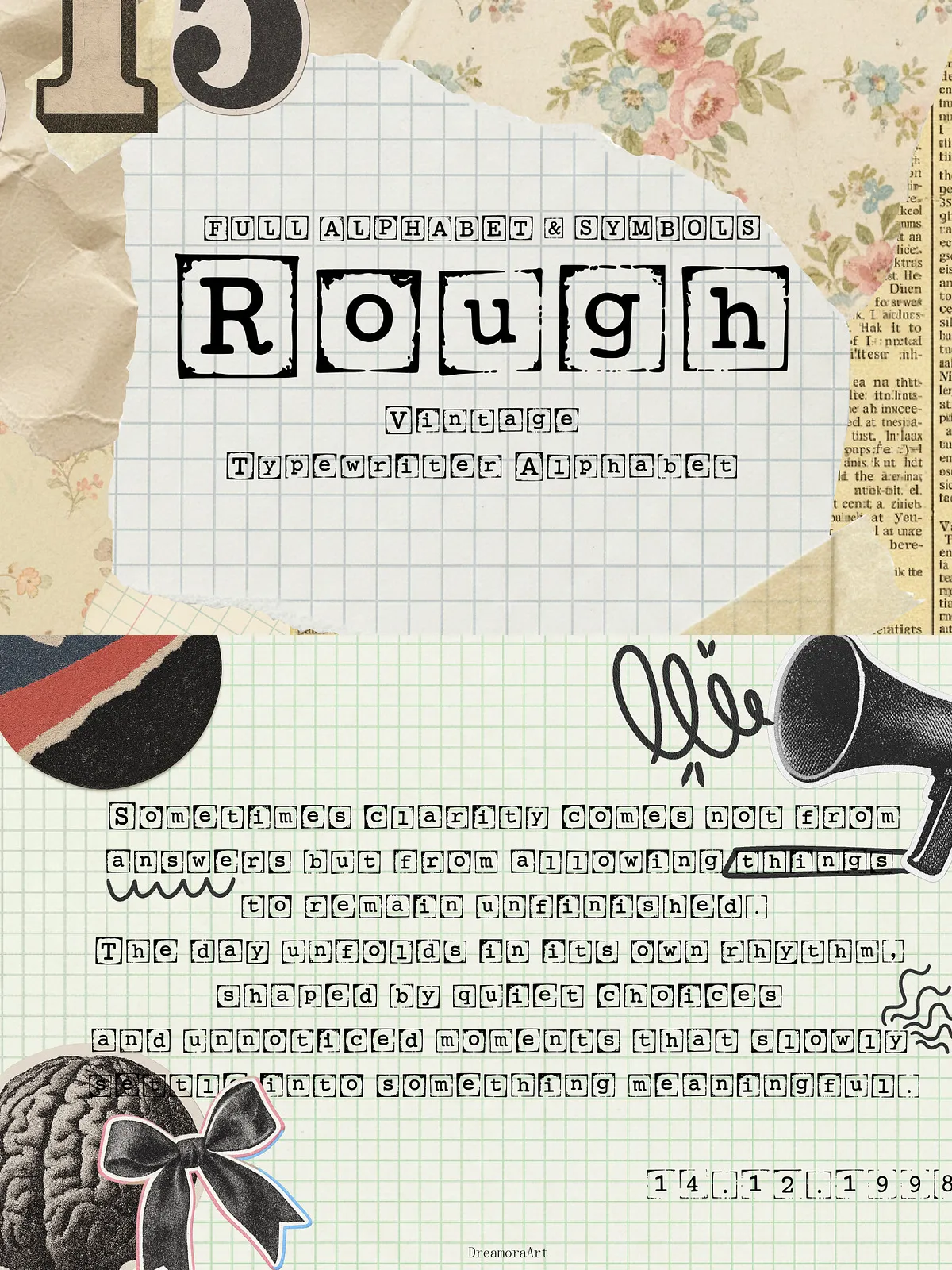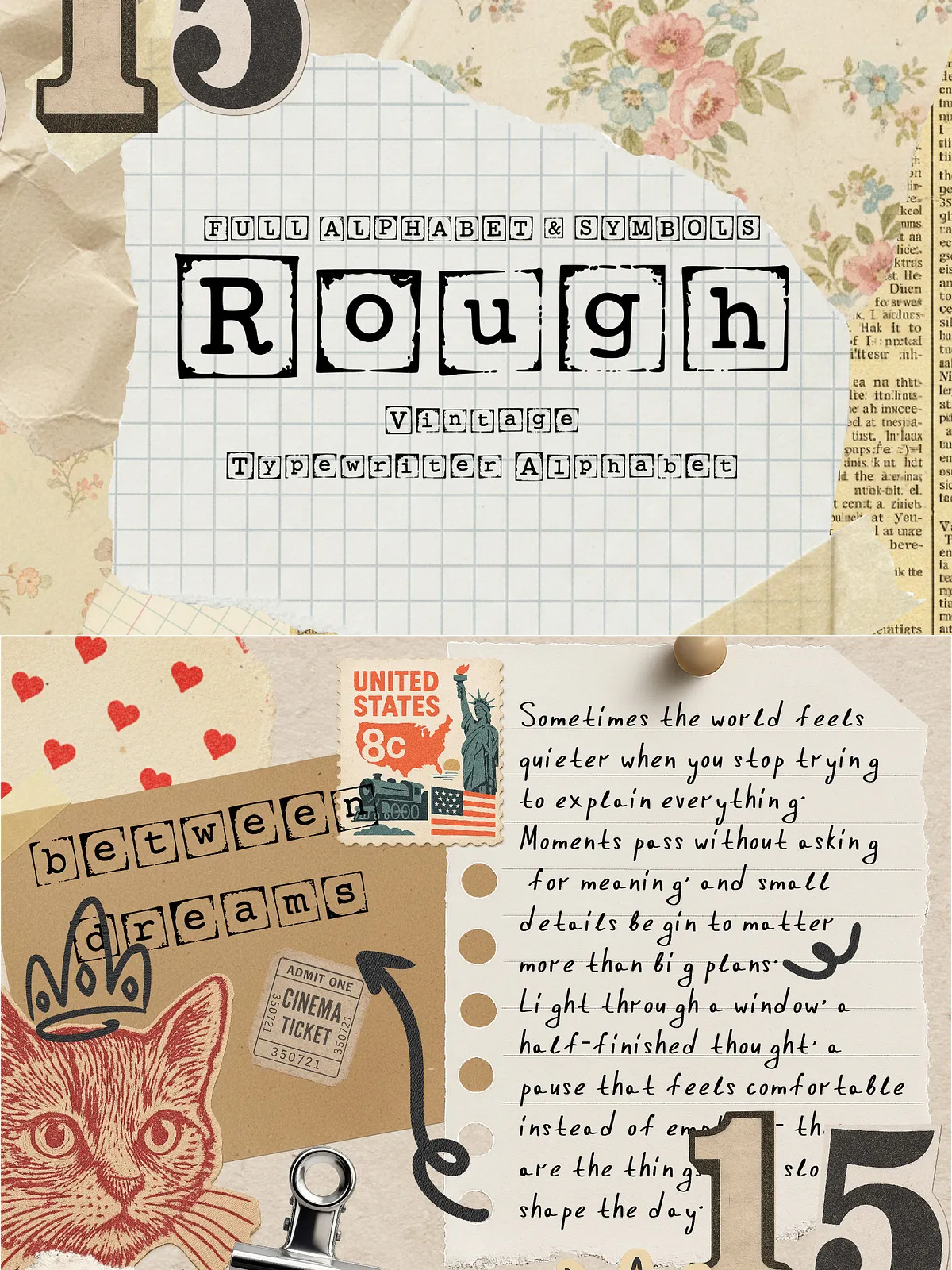
Introducing Rough — a typewriter-style font that masterfully balances minimalist elegance with the quiet charm of human imperfection. Designed for creators who value clarity but crave character, Rough breaks away from sterile digital precision. Every letter sits within a soft, rectangular frame, mimicking the subtle imprint of a paper stamp — a quiet nod to analog authenticity.
This isn’t just a font. It’s a philosophy: embrace the gentle irregularities that make handcrafted design feel alive. The monospaced rhythm ensures consistent alignment and structure, perfect for technical layouts, code formatting, or clean editorial design. Yet, through carefully crafted kerning variations and slight stroke inconsistencies, Rough breathes with a touch of humanity — like ink that bled slightly or a key that didn’t quite land.
Designed for Modern Minimalism with a Warm Heart
Rough is built for designers who want clean lines without coldness. It thrives in environments where minimalism is not just a style but a mindset — yet still allows for emotional depth and tactile presence.
• Uppercase & Lowercase Precision
Full support for both capital and small letters ensures your messages are readable, expressive, and balanced — perfect for headlines, quotes, body text, and UI elements.
• Numbers & Punctuation with Personality
Digits and symbols aren’t an afterthought. They follow the same handcrafted aesthetic — slightly uneven, but always legible. Ideal for data displays, invoices, labels, and minimalist infographics.
• Monospaced Rhythm, Organic Feel
The consistent letter width creates a steady, predictable rhythm — essential for coding snippets, terminal-style interfaces, or typewriter-style narratives. Yet the soft irregularities in stroke weight and spacing inject warmth, making it feel less machine-made and more hand-drawn.
Where Rough Makes Its Mark
This is where form meets function with soul. Rough transforms simple text into a statement.
• Branding & Identity Design
Perfect for startups, journals, book publishers, or small businesses seeking a clean yet personal brand voice. It projects honesty, precision, and warmth — a rare combination in modern design.
• Editorial & Layout Projects
Use it in magazines, newsletters, or digital stories to create rhythmic, readable content with emotional depth. Its minimalist structure keeps the focus on words, while its subtle imperfections invite closer inspection.
• Web & App UI Elements
Great for terminal-style interfaces, login screens, or coding tutorials where clarity and style matter. It adds quiet character without overwhelming the user experience.
• Packaging & Product Labels
Give your product a tactile whisper. Whether for artisanal candles, notebooks, or coffee beans, Rough suggests craftsmanship, care, and attention — without screaming for attention.